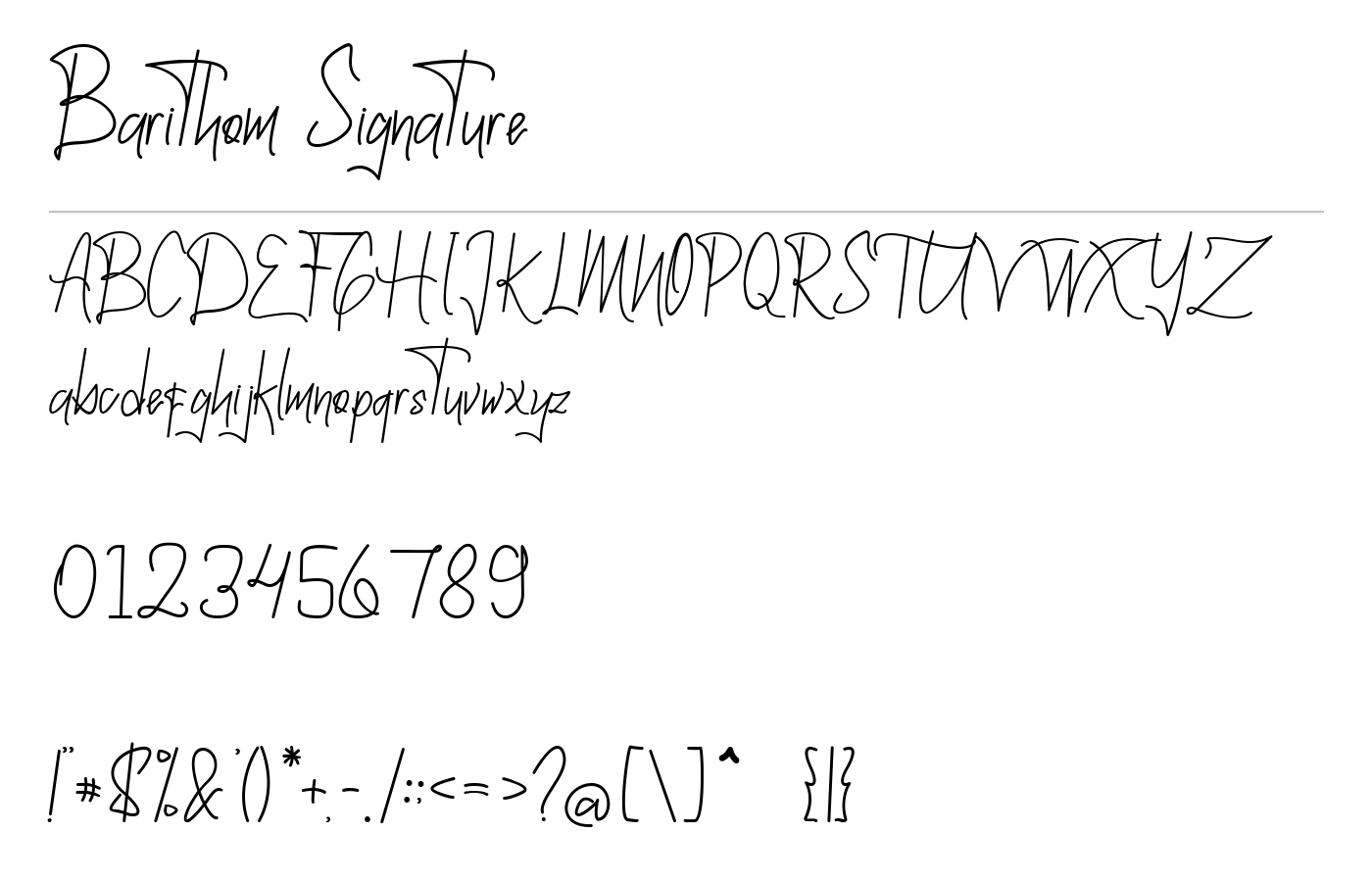
Barithom Signature is a delicate, handwritten script font with a thin weight and tall, narrow letterforms that resemble elegant and personalized handwriting. Its unique, flowing strokes and slightly quirky character shapes give it a charming, artistic feel perfect for fashion branding, invitations, and creative logos that want to convey a sense of individuality and sophistication. This font works best in larger sizes, where its fine details and graceful style can shine as a standout design element.
Barithom Signature Font